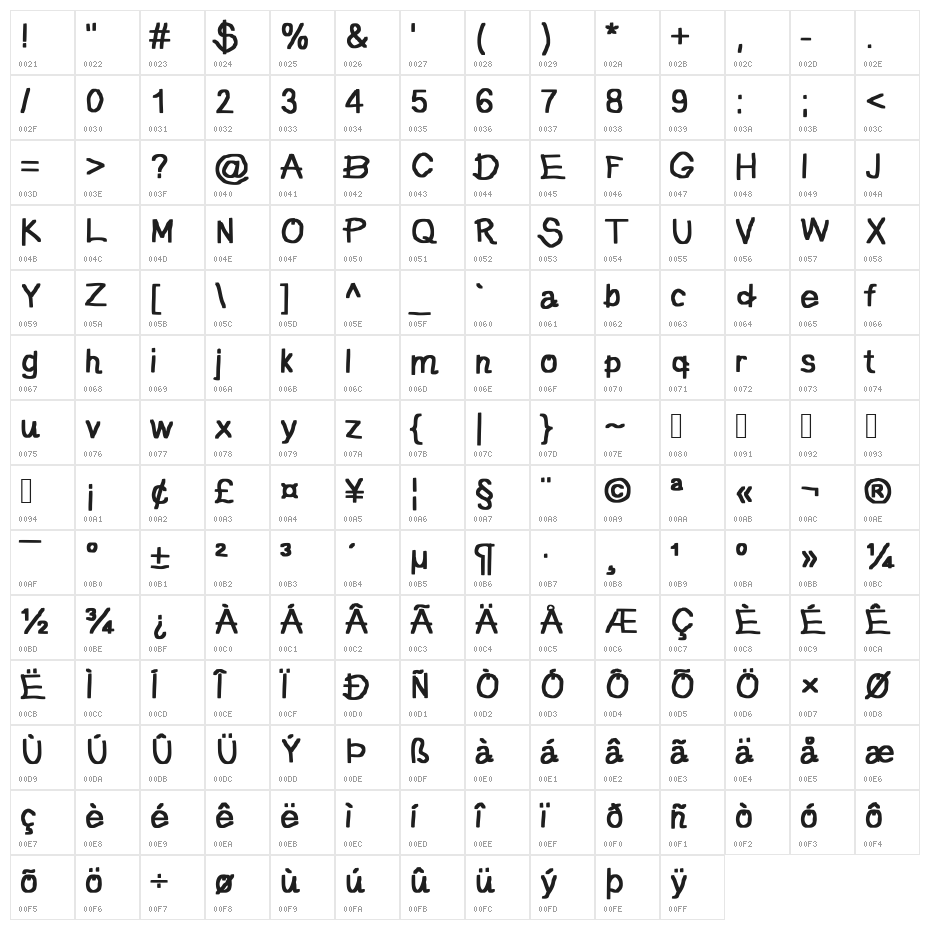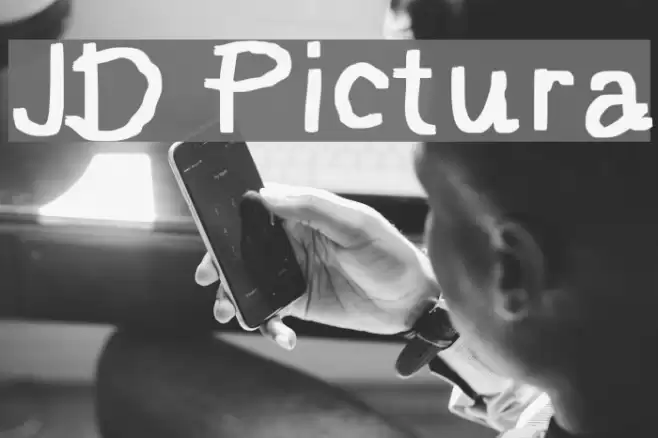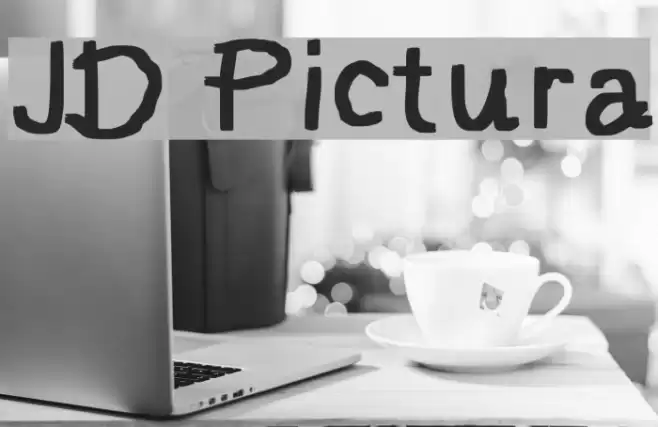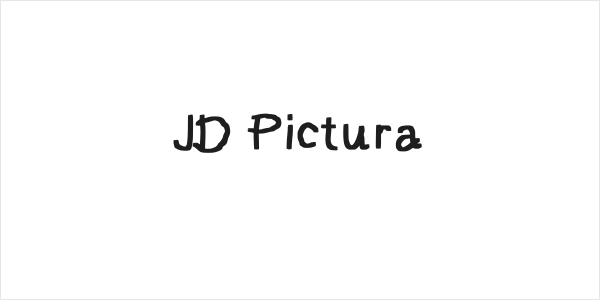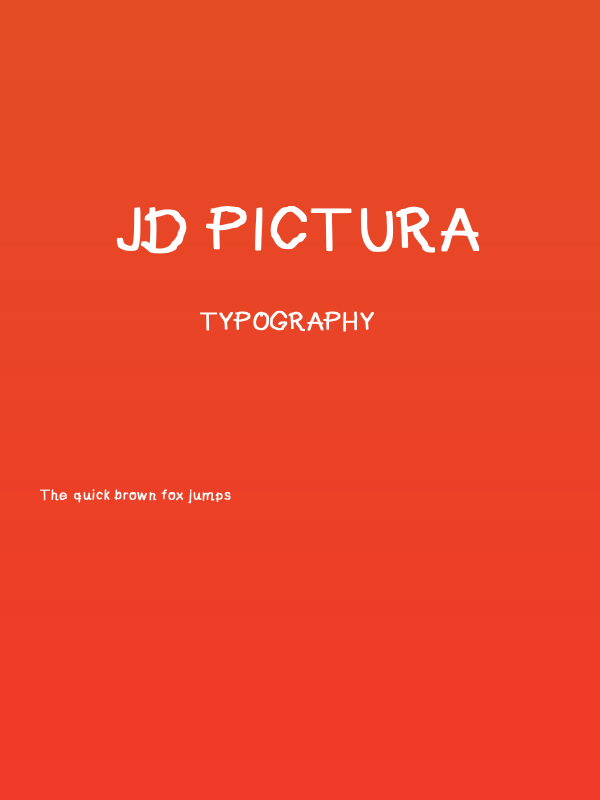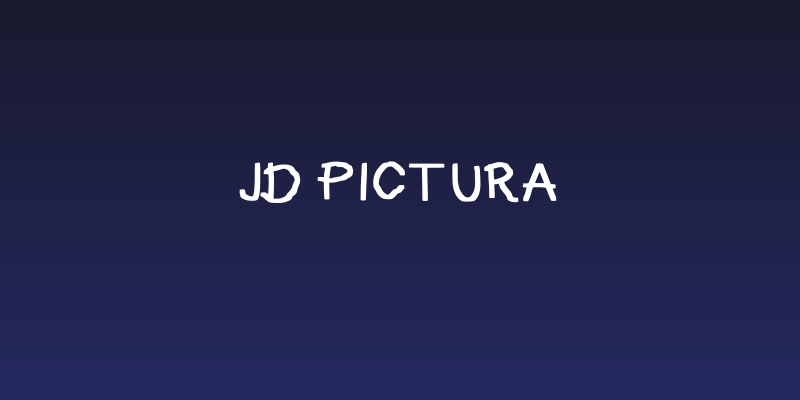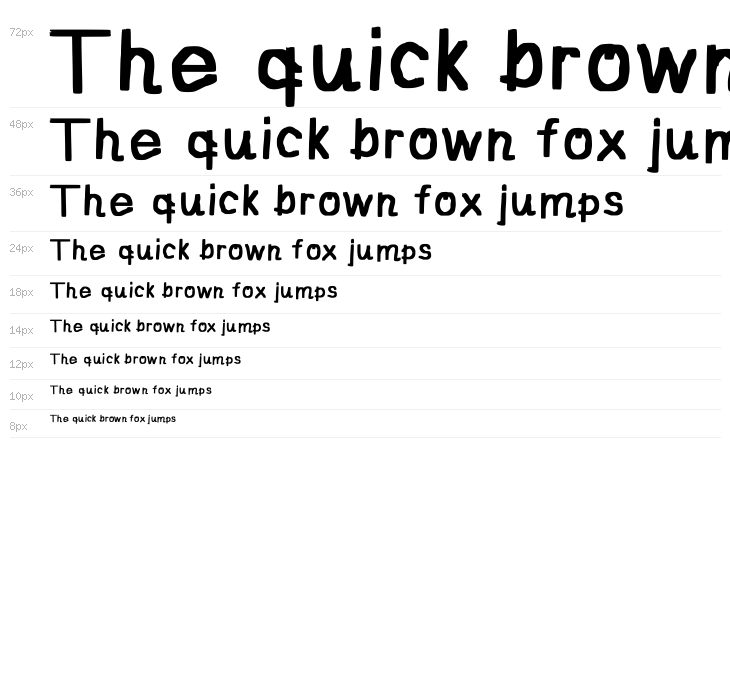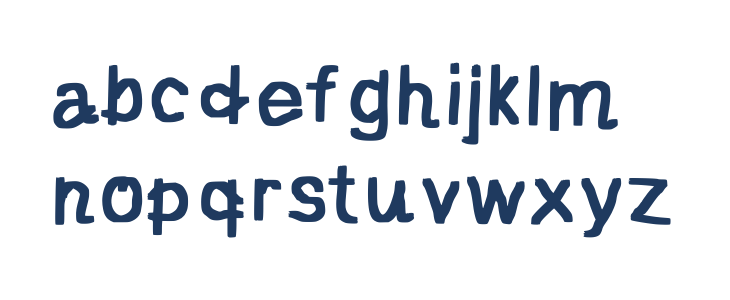
JD Pictura Font
JD Pictura Description
This font features a playful and artistic style, characterized by its hand-drawn appearance. The letters have an irregular, slightly wobbly form that gives a casual and informal feel. The strokes are uneven, adding to the handcrafted aesthetic. Uppercase and lowercase letters maintain a consistent style, with rounded edges and varying stroke thickness. Numbers and special characters follow the same design principles, ensuring a cohesive look across all glyphs. This font is ideal for projects that require a personal touch, such as invitations, greeting cards, or creative branding materials. Its unique style makes it stand out, adding a sense of whimsy and creativity to any design.
| Use Case | Headlines, Creative projects, Invitations |
| Proposed Projects | Ideal for invitations, greeting cards, creative branding, and artistic projects. |